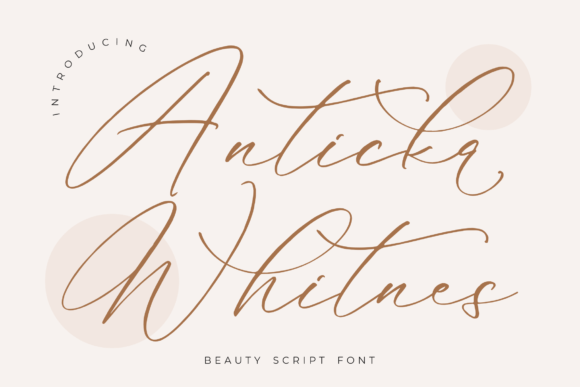
The Elusive Perfect Font: My Encounter with Anticka Whitnes
Ah, the quest for the perfect font! It’s a journey every designer, crafter, and creative hobbyist can relate to. I recall working on a luxury brand project, determined to create an elegant logo that exuded sophistication. The challenge? Finding a font that was both unique and refined. That’s when I stumbled upon Anticka Whitnes, a beauty script font that has since become a staple in my design toolkit.
What is Anticka Whitnes?
Anticka Whitnes is a luxury script font that boasts a modern look and a unique style all its own. **This typeface is perfect for creating elegant and luxurious designs**, whether it’s for a logo, book or movie title, fashion brand, magazine, clothes, lettering, quotes, or any other project that requires a touch of sophistication.
What I Love About Anticka Whitnes ✨
- 💫 Unique and modern script style that stands out from more traditional fonts
- ✅ Elegant and luxurious feel, perfect for high-end designs
- 🎨 Highly versatile, suitable for a wide range of design projects
- 📚 Extensive character set, including OpenType features and glyphs
While Anticka Whitnes is an exceptional font, there are a few minor quirks to be aware of:
- 🤔 Some users may find the font requires a bit of tweaking to get the kerning just right
- ⚠️ Limited availability of certain characters or alternates, although this is rare
The Story Behind Anticka Whitnes
While the true story behind Anticka Whitnes may be unknown, it’s easy to imagine that its designer was inspired by the luxury and elegance of high-end fashion and jewelry. Perhaps they sought to create a font that would evoke the same feelings of sophistication and refinement. Whatever the inspiration, Anticka Whitnes has undoubtedly become a go-to font for designers seeking to add a touch of luxury to their work.
Q: What makes Anticka Whitnes unique?
A: Anticka Whitnes boasts a modern script style with a unique feel, making it perfect for designers looking to add a touch of elegance to their work.
Q: Is Anticka Whitnes suitable for body text?
A: While Anticka Whitnes is primarily designed for display text, it can be used for body text in certain contexts, such as in luxury publications or high-end marketing materials.